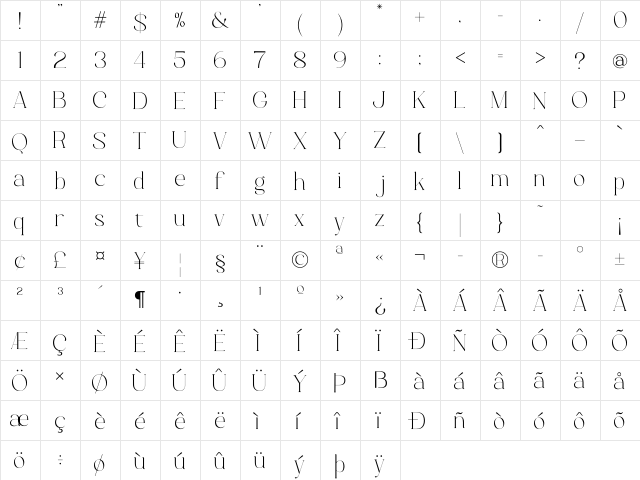
Luimp Light Light
Design Context for Luimp Light Typeface
Luimp Light offers clean, dependable letterforms without strong stylistic allegiance, making it a practical choice for designers who need flexibility. The delicate stroke weight brings airiness and refinement to layouts.
Pro Tip: Use Luimp Light in both headline and body roles to test its range before committing to a single application.